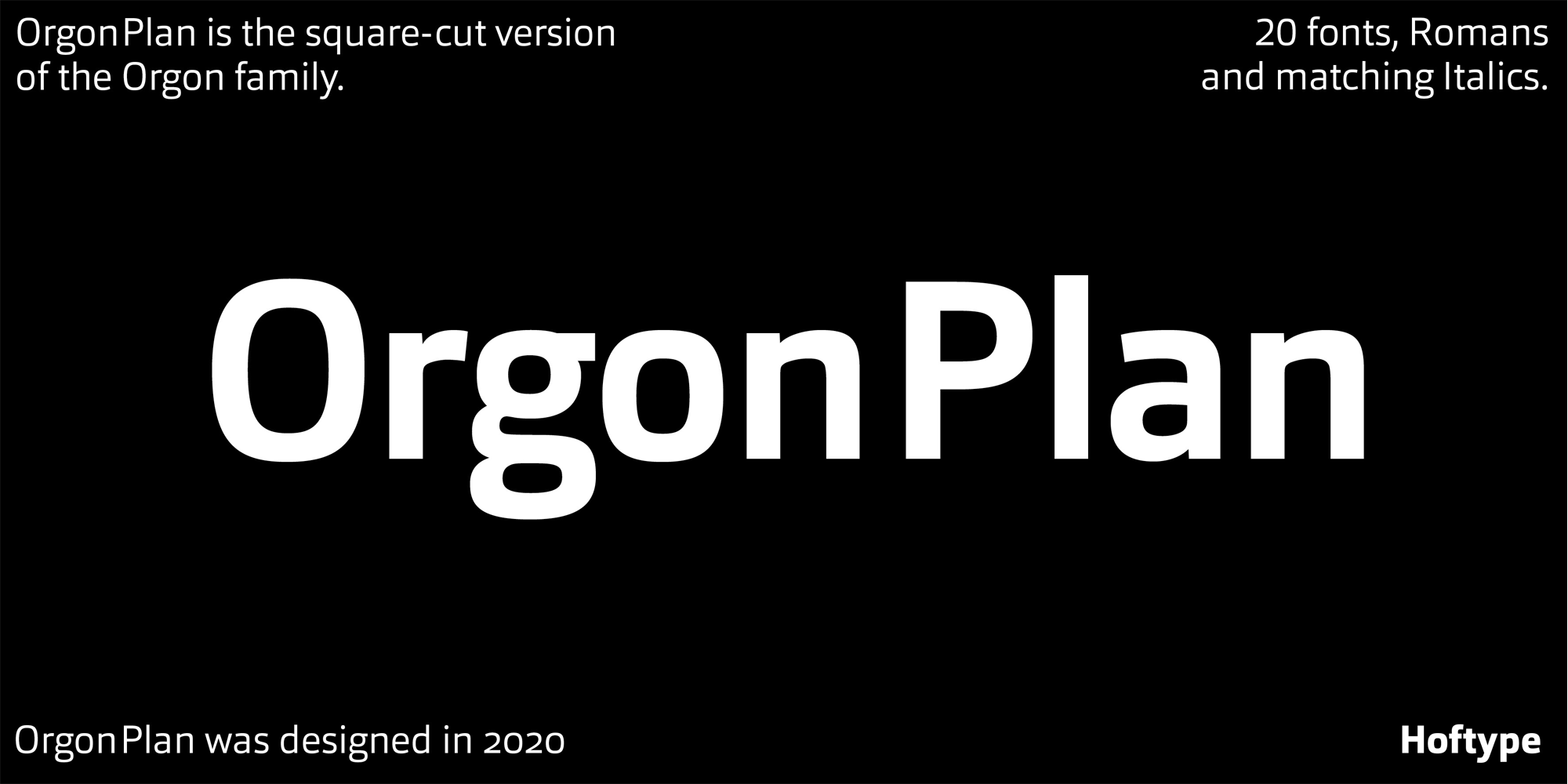
Orgon Plan Font is a sleek and exceptionally modern sans-serif typeface, distinguished by its clean lines, geometric precision, and an often futuristic or technical aesthetic. It's perfectly suited for projects that demand a high degree of clarity, innovation, and a strong contemporary feel, such as cutting-edge technology branding, architectural renderings, minimalist web design, and sophisticated scientific publications. Imagine Orgon Plan Font forming the backbone of an innovative product interface, lending its crisp readability to complex schematics, or providing a clear and authoritative voice to advanced research papers. Its uncluttered design and strong presence ensure your message is communicated with precision and a forward-thinking sensibility, making it an excellent choice for designs that aim for both exactitude and modern elegance.
What makes Orgon Plan Font truly exciting is its remarkable ability to blend simplicity with powerful visual impact. This font excels in creating a sense of spaciousness and modernity, making it ideal for designs where clear communication and aesthetic efficiency are paramount. The meticulous construction of each character, featuring precise geometric forms and often uniform stroke widths, ensures high legibility across various sizes and mediums, from small print to large display screens. It’s more than just a typeface; it’s a strategic design tool that helps convey professionalism, innovation, and a refined, minimalist aesthetic. Orgon Plan Font stands out for its broad versatility and its capacity to elevate any design with its understated yet profound visual presence.
Orgon Plan Font typically comes with a comprehensive family to provide extensive flexibility for diverse design applications. This usually includes a wide range of weights such as thin, light, regular, medium, semi-bold, and bold, often accompanied by corresponding italic or oblique versions. Some families might also offer condensed or extended styles, along with a variety of ligatures and alternative characters to enhance its typographic possibilities. This extensive Orgon Plan Font Free Download family ensures you have all the tools necessary to create cohesive and dynamic designs, allowing for consistent branding and powerful visual communication across all your platforms, from print media to digital interfaces.